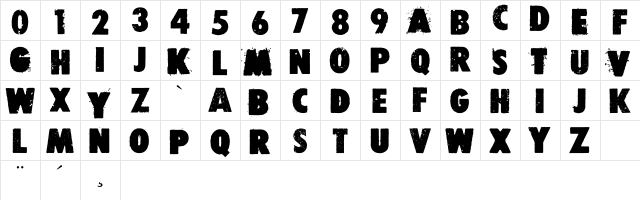
Free press Regular
Design Context for Free press Typeface
Free press is a composed and adaptable typeface that performs quietly and consistently across a wide range of design contexts.